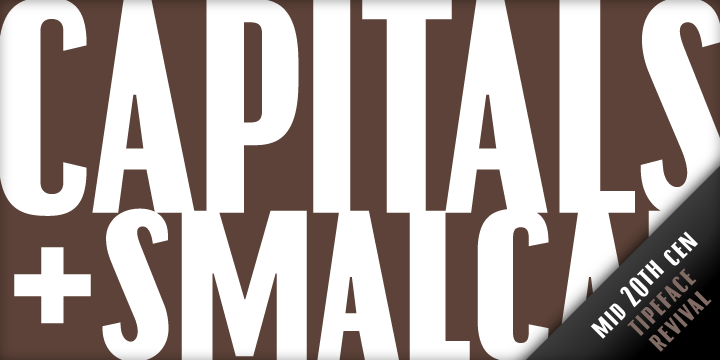
Master Free Download
Master Font Free Download
Master Font is perfect for elite training academies, martial arts studios, professional coaching services, leadership development programs, master craftsman workshops, advanced skill certifications, executive education centers, expert consultation firms, mastery-focused educational institutions, and prestigious skill-building organizations.
Master Font is exciting because it commands respect and embodies expertise with authoritative letterforms that convey the disciplined excellence and hard-earned wisdom of true mastery, making it perfect for brands that need to communicate the highest levels of skill, knowledge, and professional achievement.
The Master Font family includes regular and bold weights with authoritative alternates, expertise-inspired ornaments, and mastery-themed decorative elements, providing designers with commanding tools for creating typography that speaks with the voice of genuine expertise and professional excellence.
When your project demands expertise authority and mastery credibility, Master Font Free Download delivers the perfect typographic foundation for establishing professional dominance and skill leadership. This commanding typeface combines traditional mastery principles with contemporary functionality, ensuring your brands resonate with audiences seeking the highest levels of expertise and professional development. The authoritative letterforms and expert styling make this font an essential choice for training institutions, professional services, and any application where mastery achievement, expert knowledge, and skill excellence are crucial for establishing credibility and attracting serious students and clients who demand nothing less than the finest instruction and most advanced expertise available in their field of pursuit.